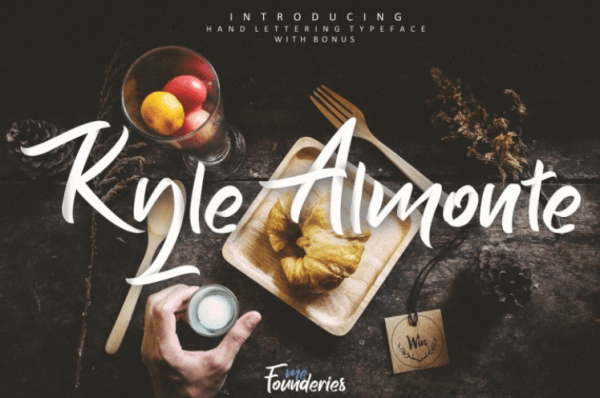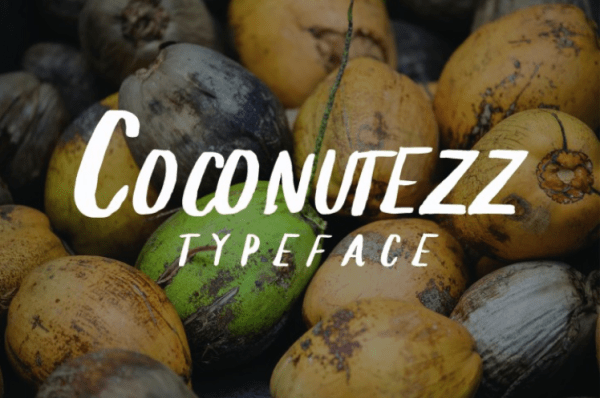
Font Frenzy: Kyle Almonte Font
Introducing Kyle Almonte Typeface; which has a hand lettering brush style. It looks natural and handmade. This font is best used for your design projects that incorporate summer, fun and brave. It can also be applied to the design of a logotype, lettering a quote, t-shirt design , posters and etc.
Kyle Almonte come with coconutezz type as a bonus!